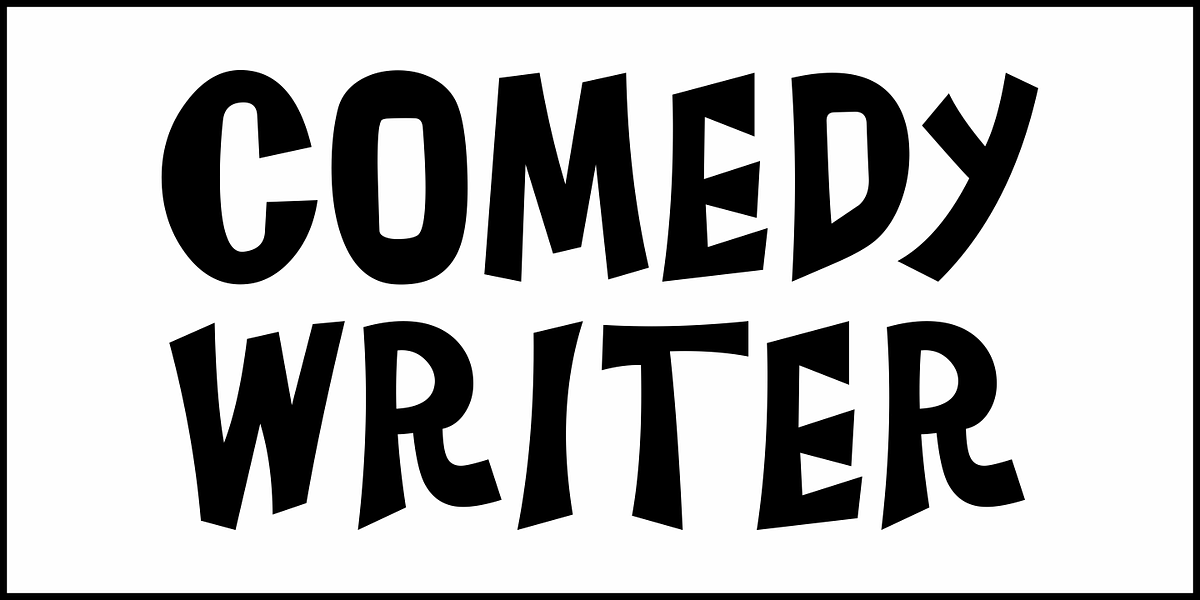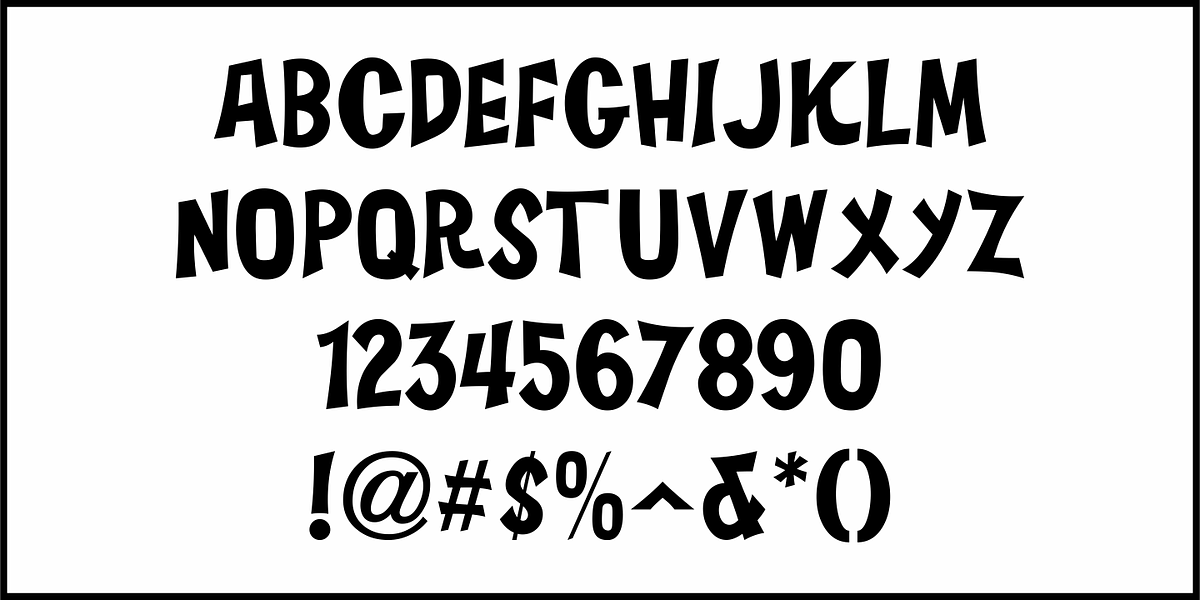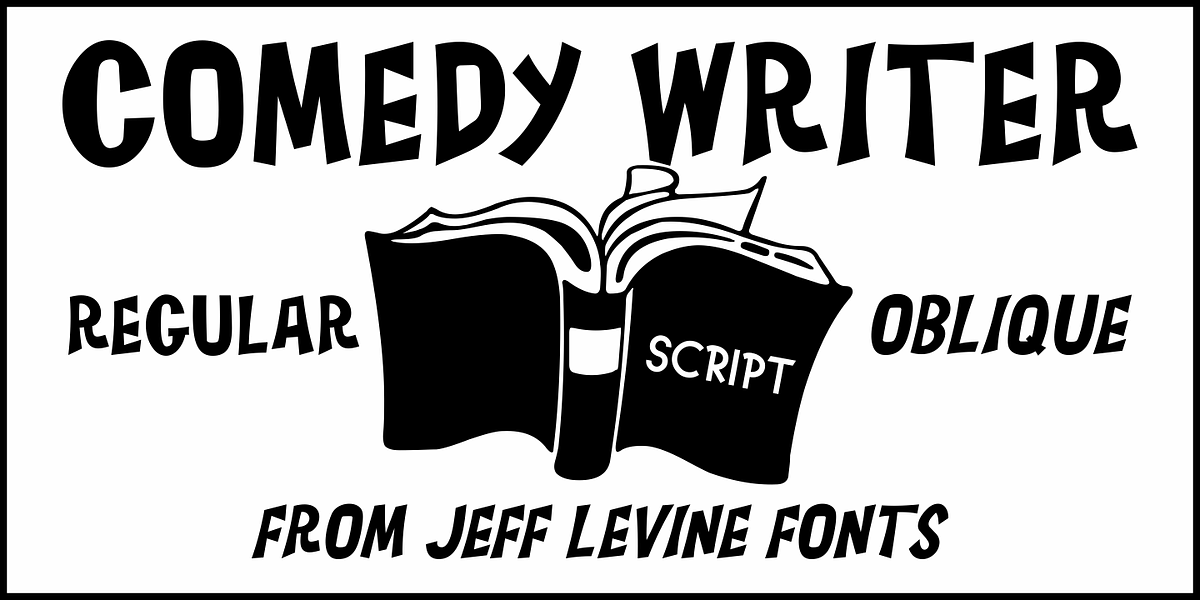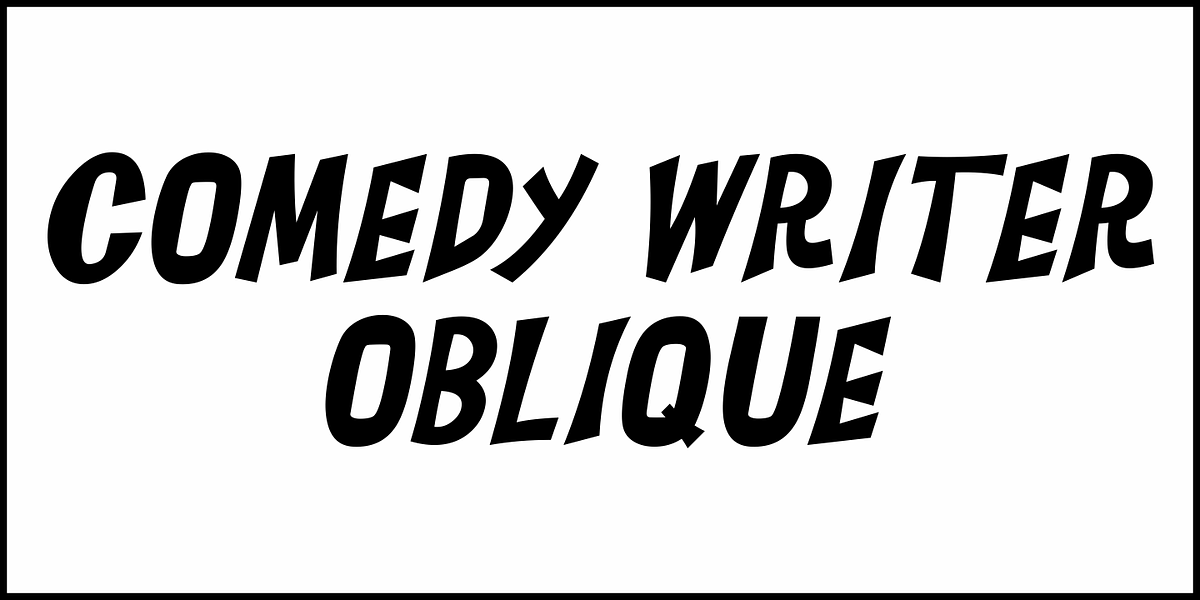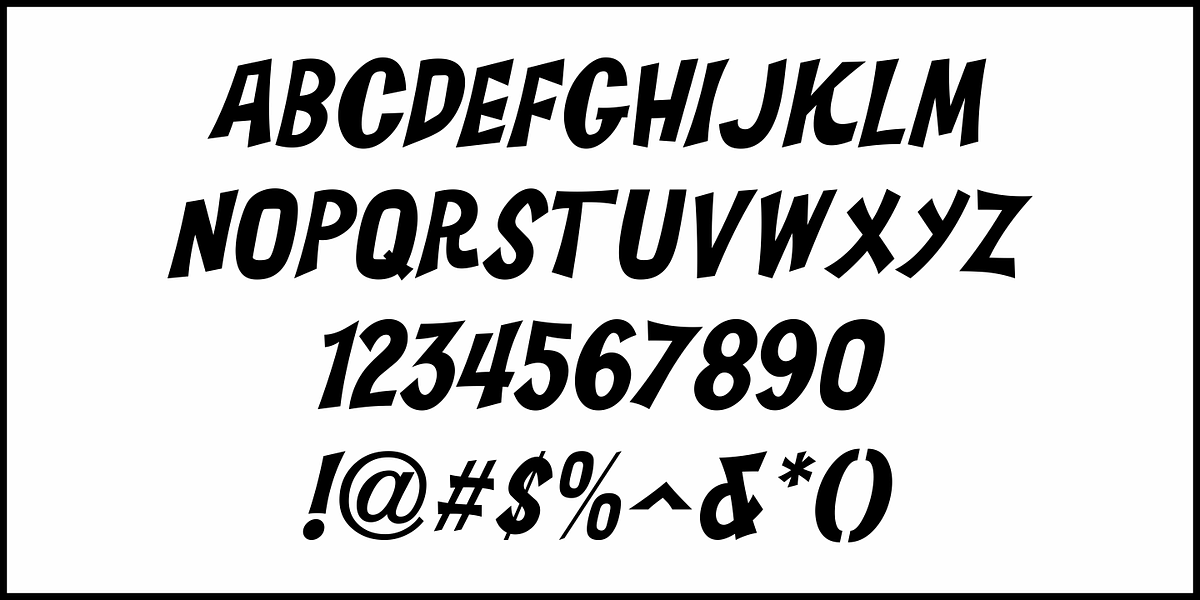
Comedy Writer JNL
Inspired by the free-form, hand lettered opening title and credits for the classic Dick Van Dyke show, Comedy Writer JNL is available in both regular and oblique versions.